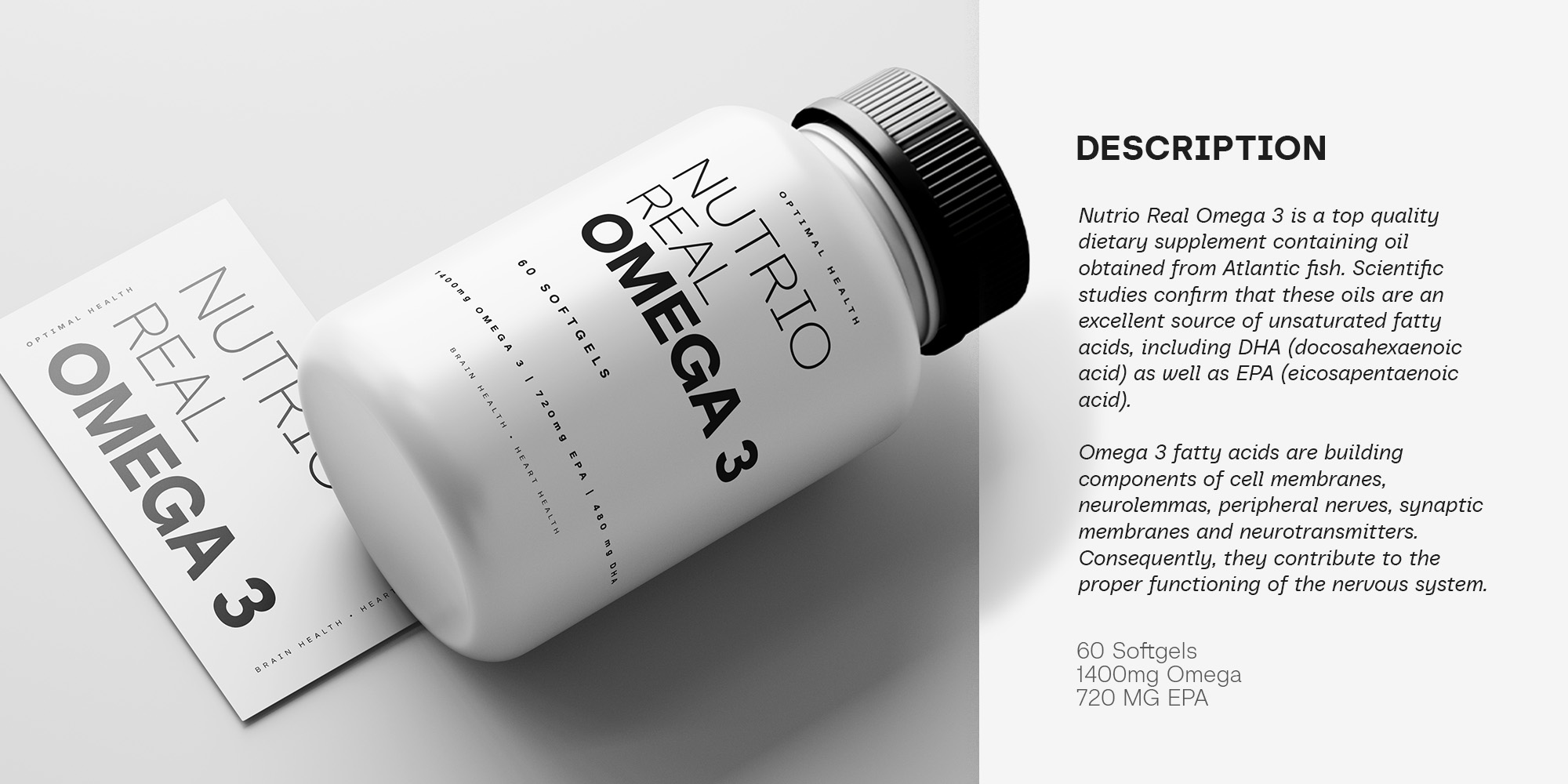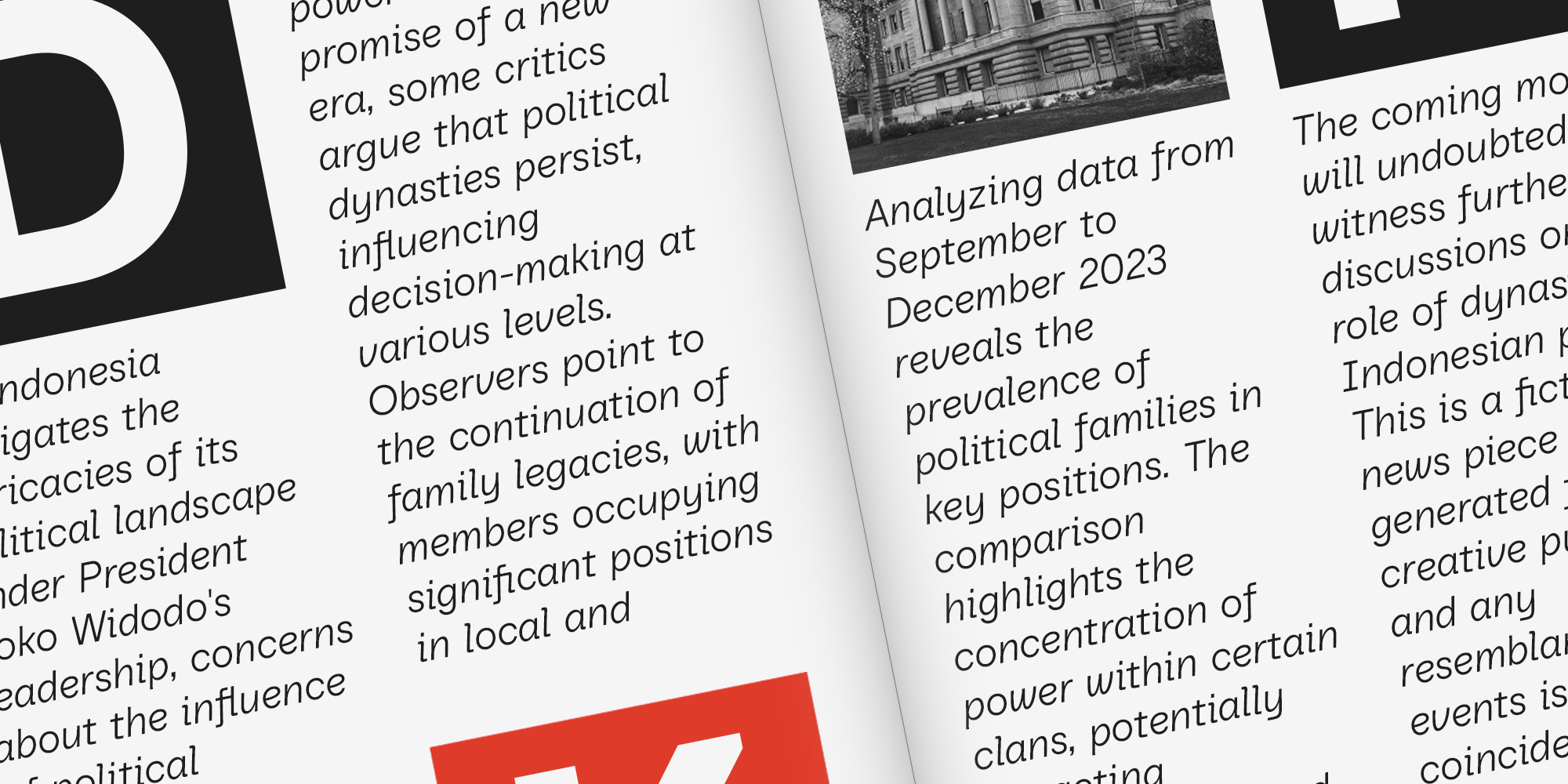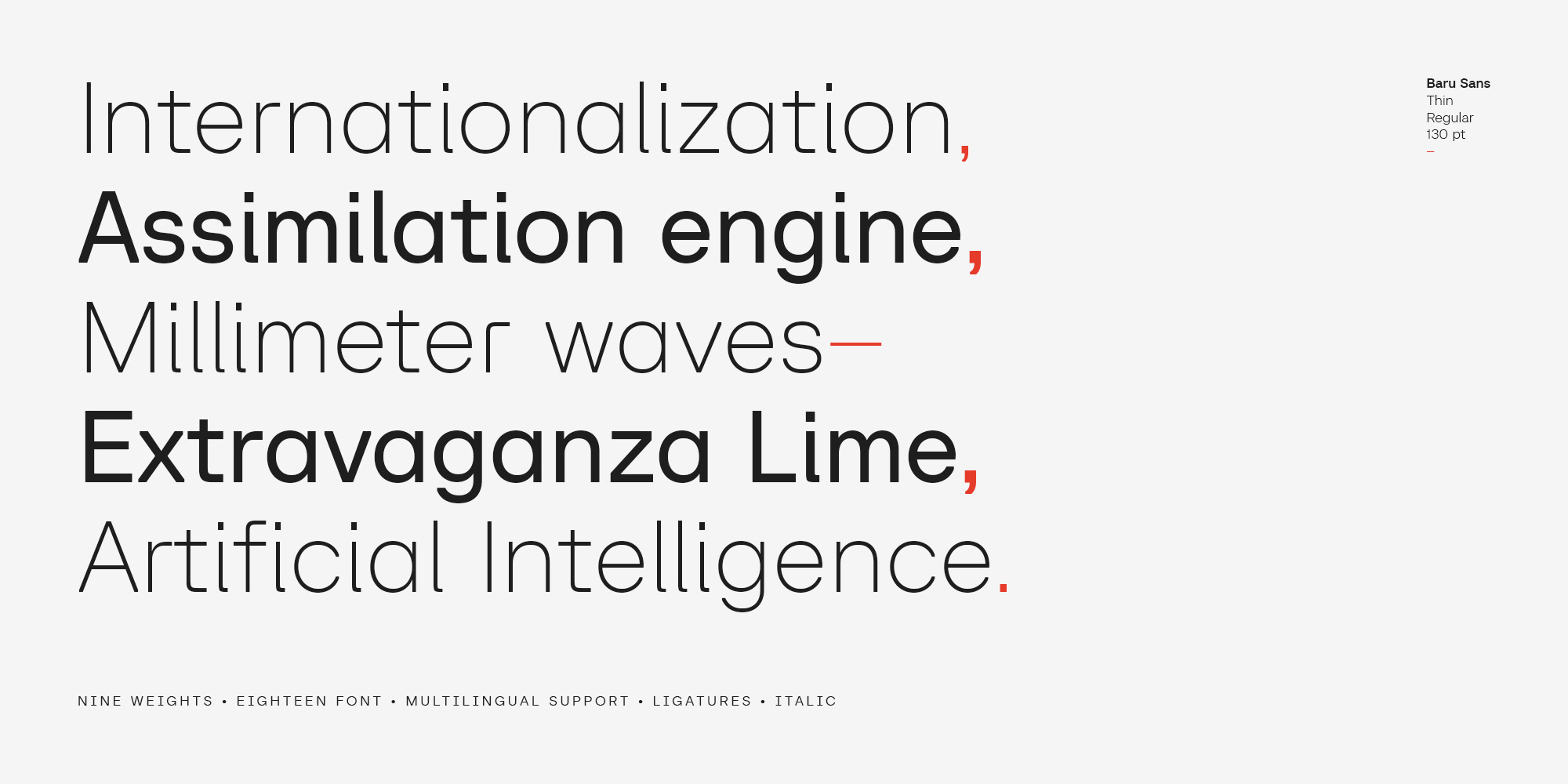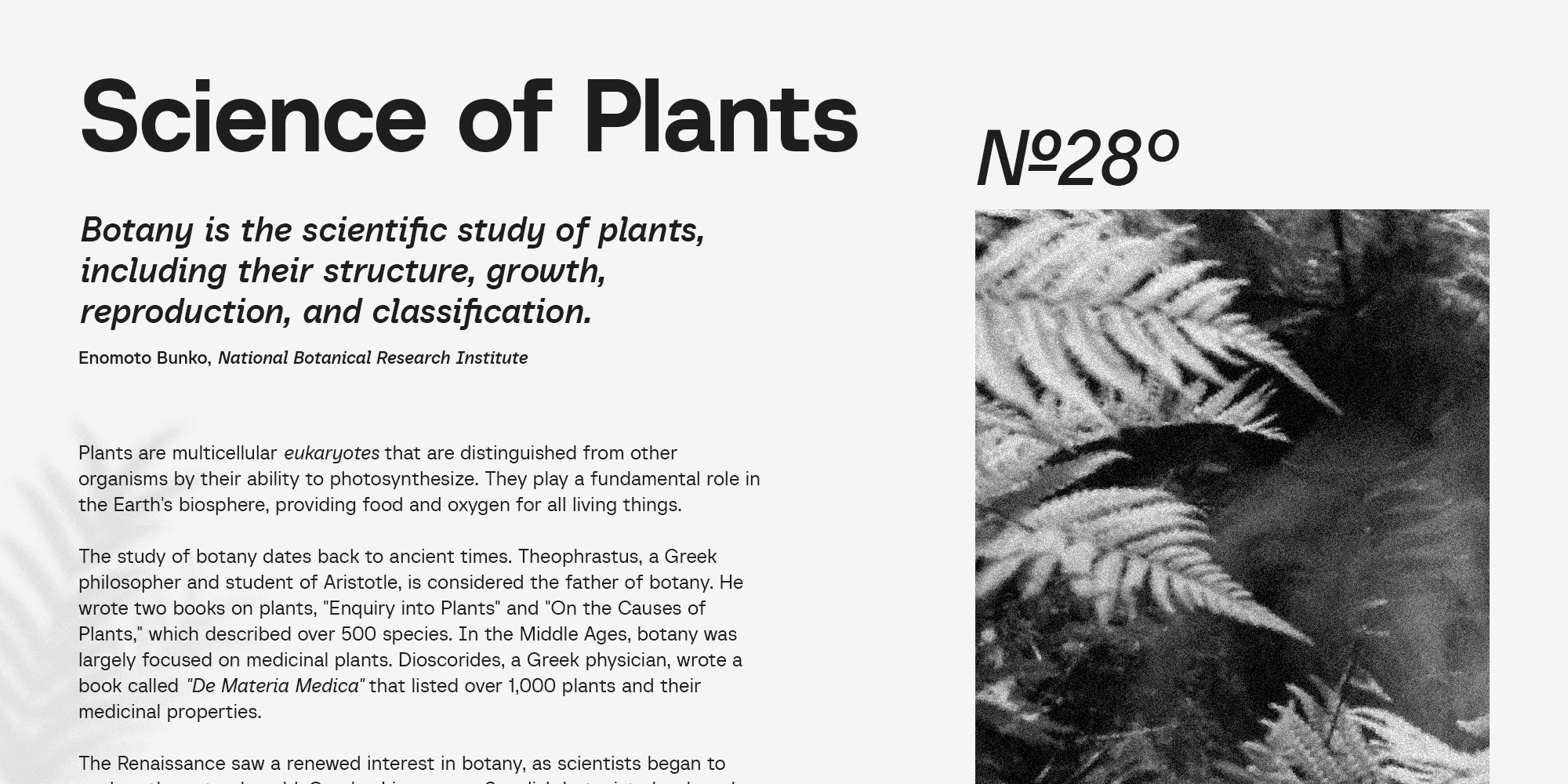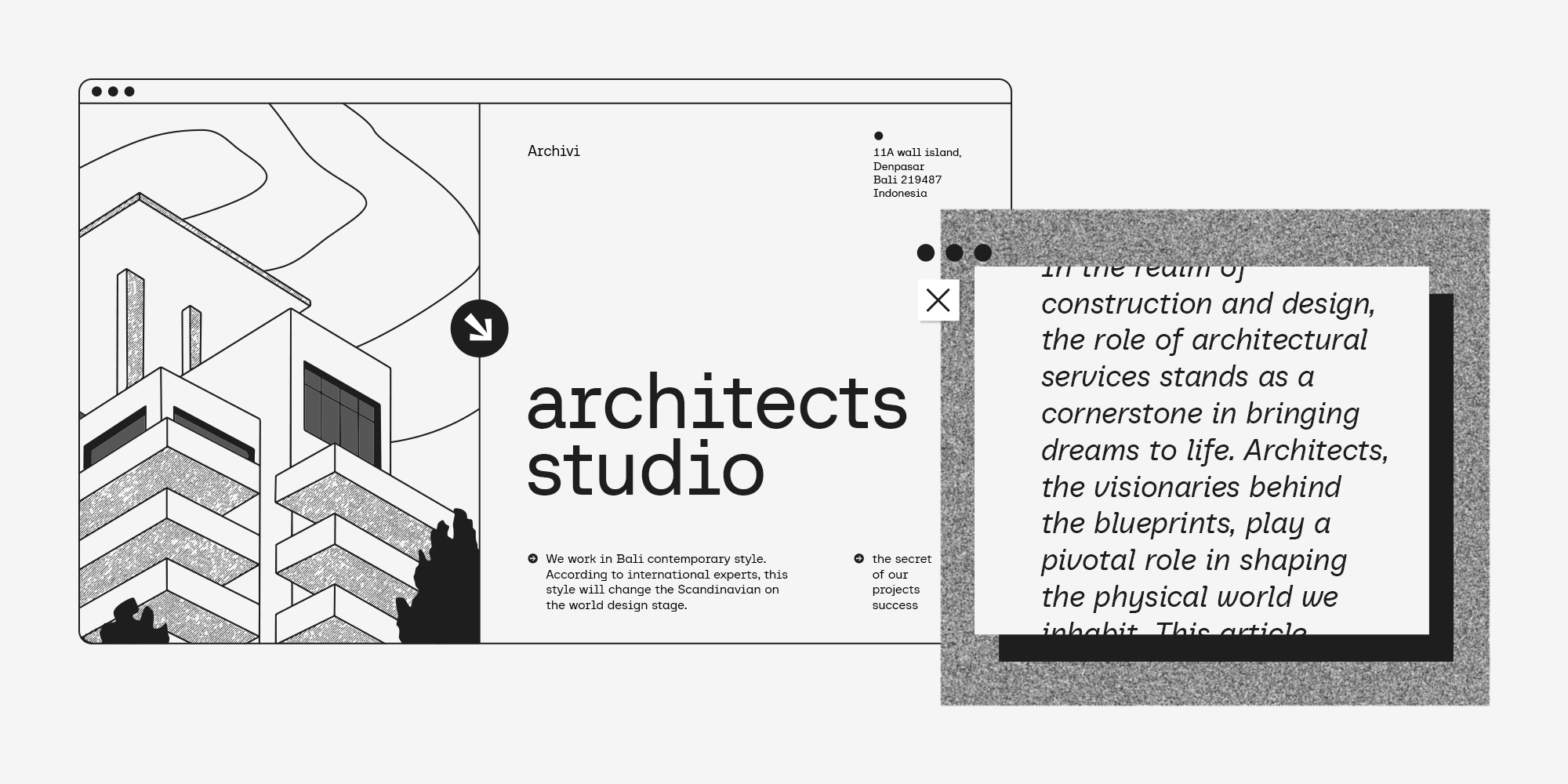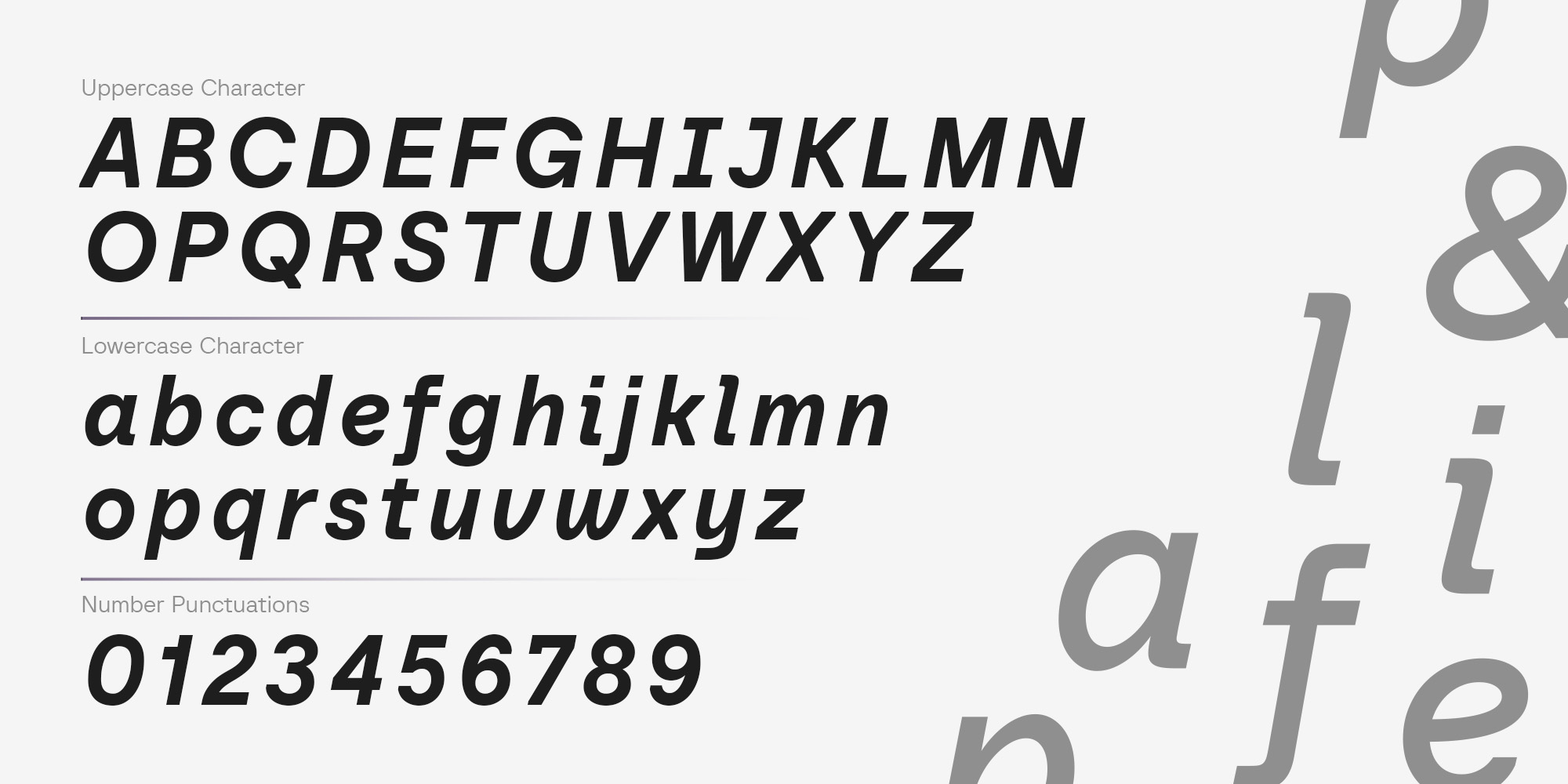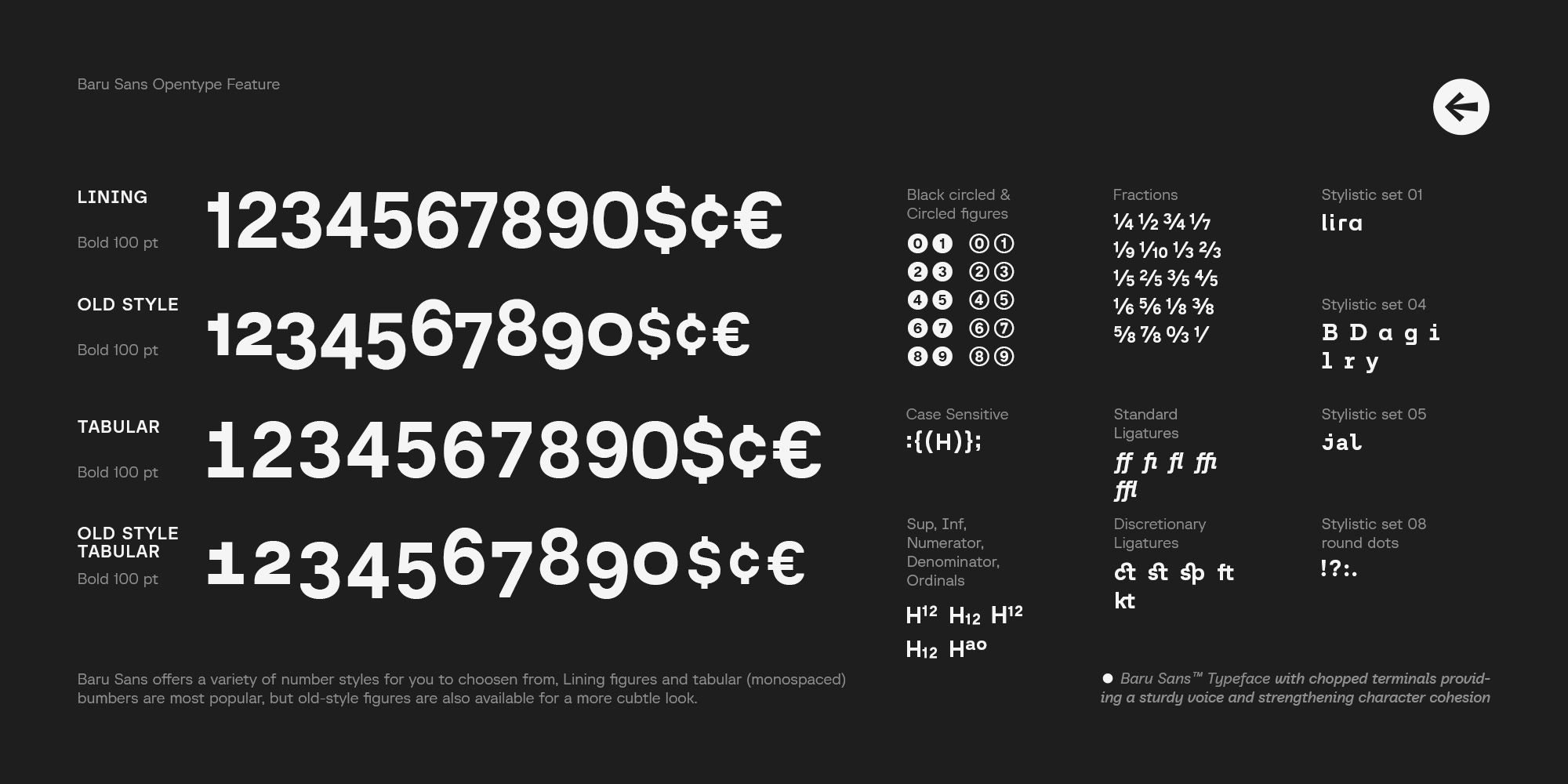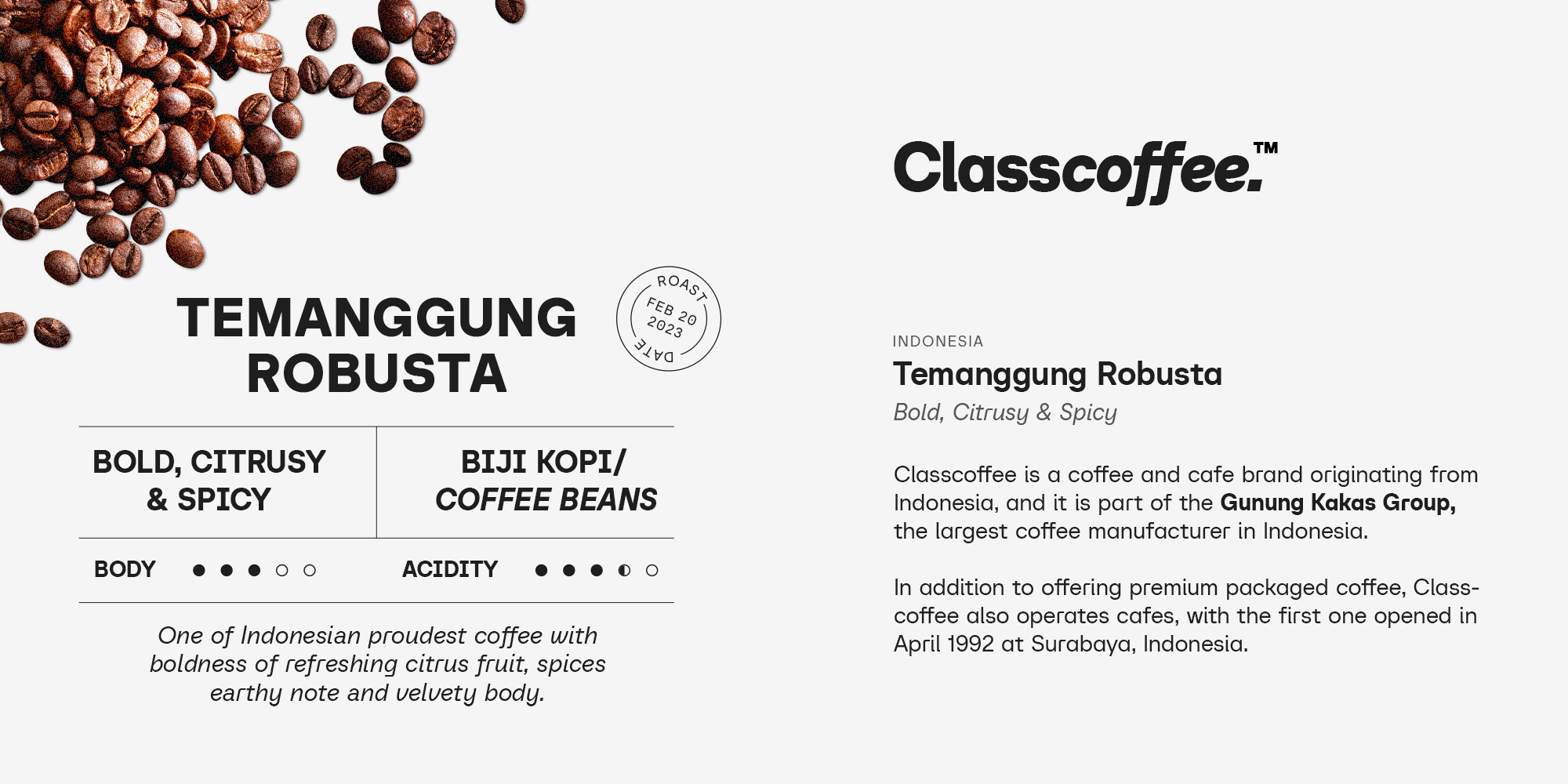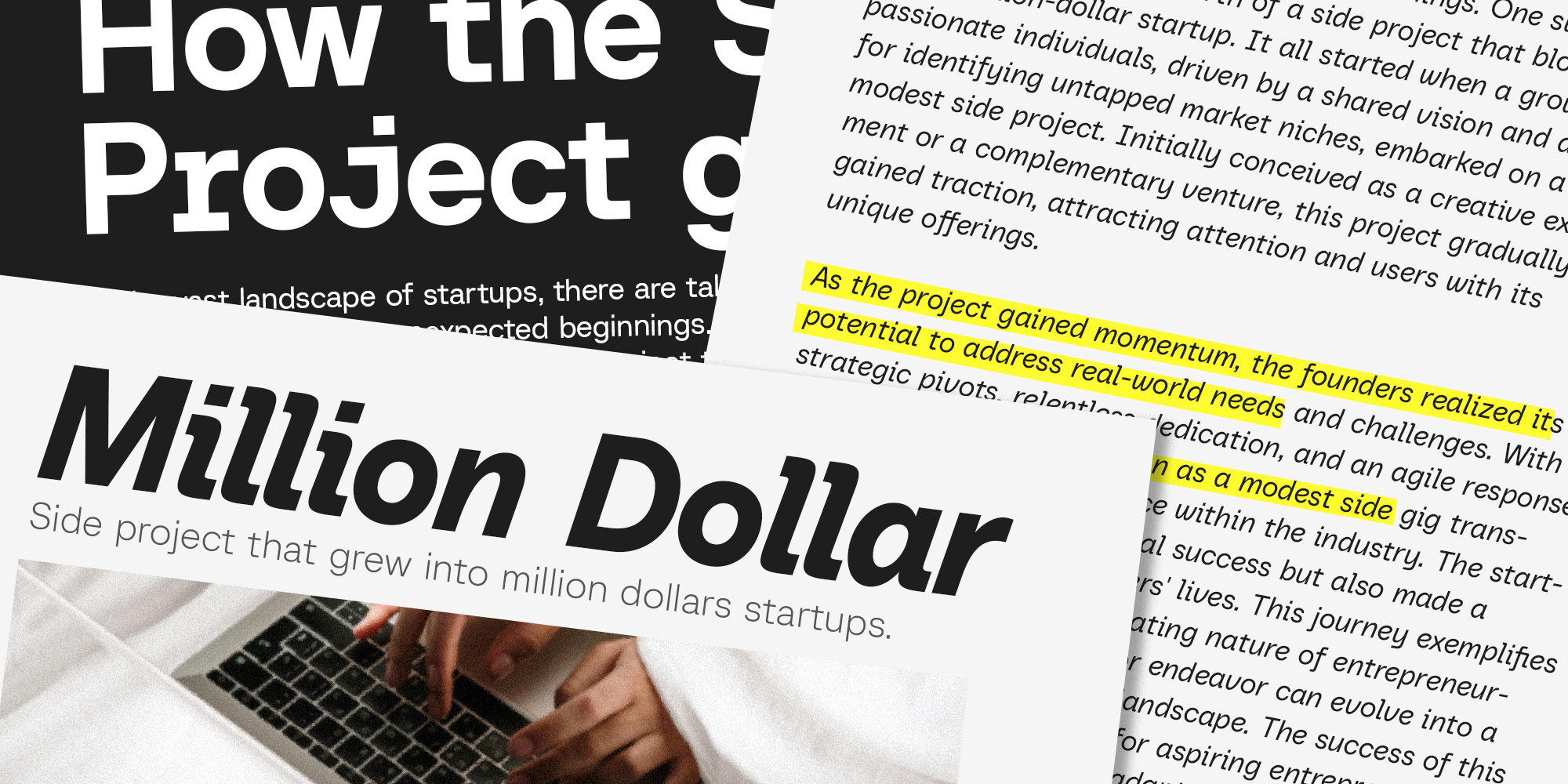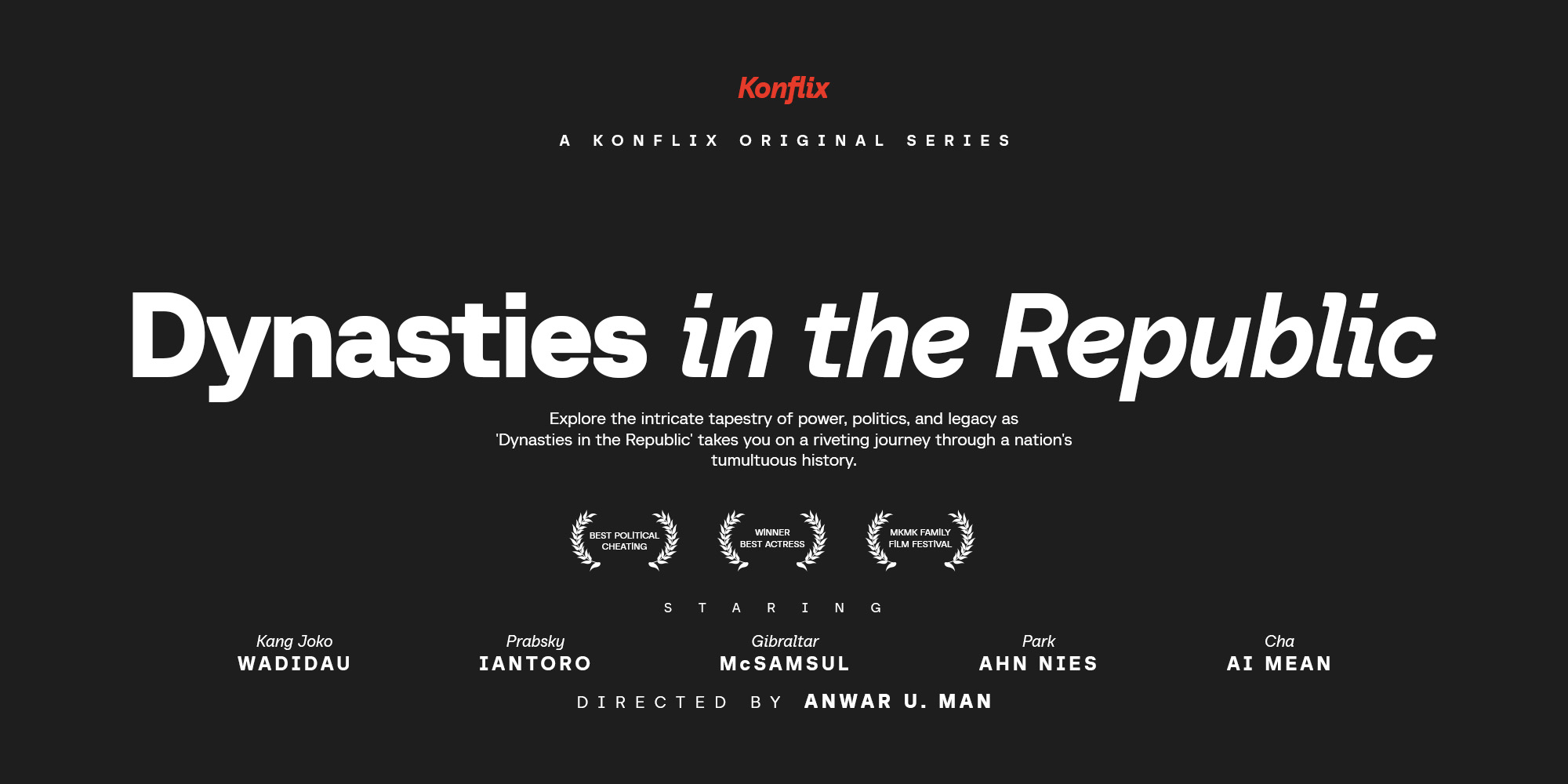
Baru Sans
A Versatile Geometric Sans Serif Family Featuring Eighteen Fonts Designed For Modern Branding, Editorial Layouts, And Digital Interfaces.
Baru Sans
Modern Geometric Sans With Humanist Italics
Baru Sans is a cutting-edge geometric typeface family that balances mathematical precision with a fresh, contemporary aesthetic. Defined by distinctive chopped terminals and 90-degree strokes, it offers a total of 18 fonts across 9 weights, ranging from refined Thin to impactful Super. While the uprights exude geometric structure, the italics embrace a humanist style inspired by handwriting for added warmth and legibility. Perfect for everything from corporate branding and long-form text to motion graphics and digital interfaces, Baru Sans delivers a reliable, trustworthy, and modern voice to any creative endeavor.
Modern Geometric Sans With Humanist Italics